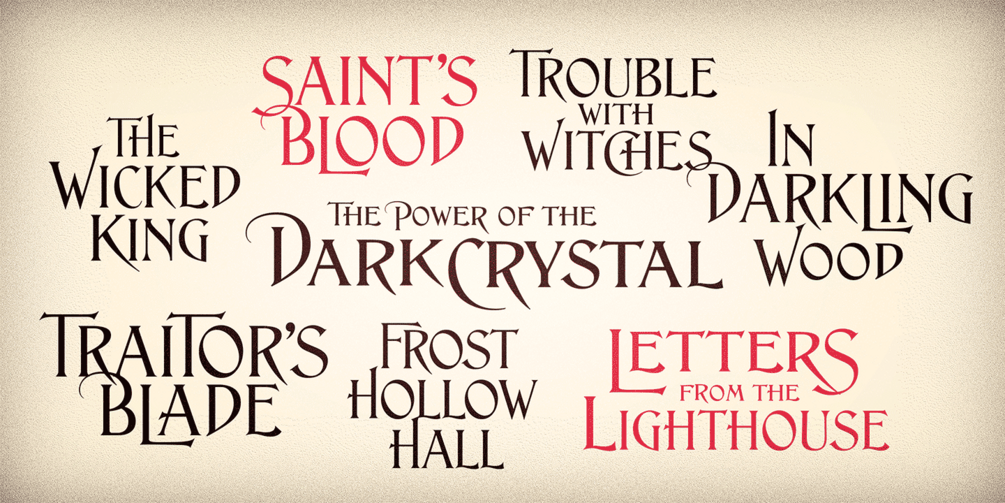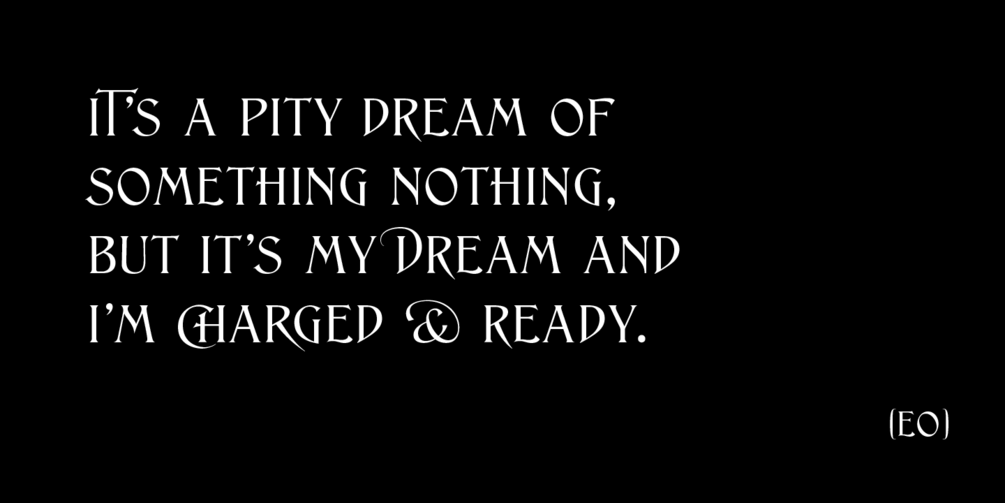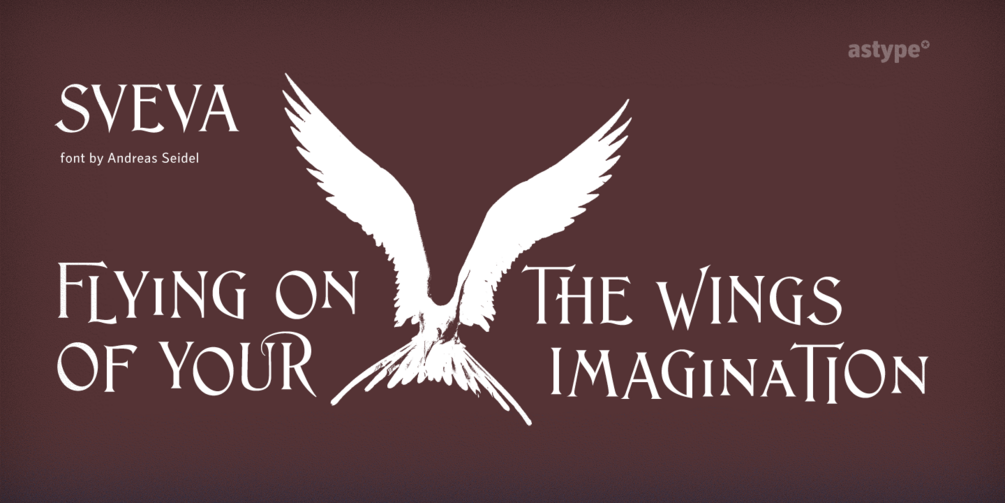
Sveva Versal
The Sveva Versal font is a light swinging art nouveau caps only headliner, with swash like alternates and lots of special combinations. It's well suited to set a short and fancy block or line of text. In recent years there are more and more books for young adults and from the fantasy genre that use Sveva for titlings.